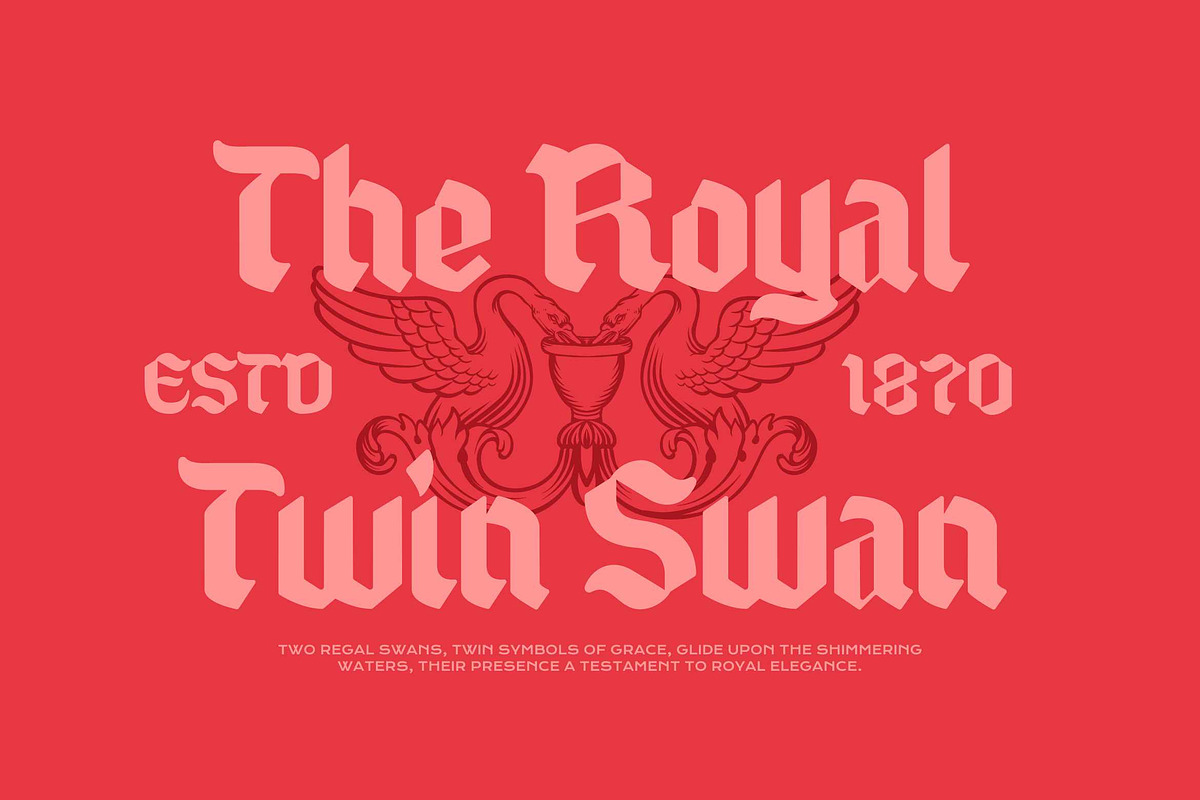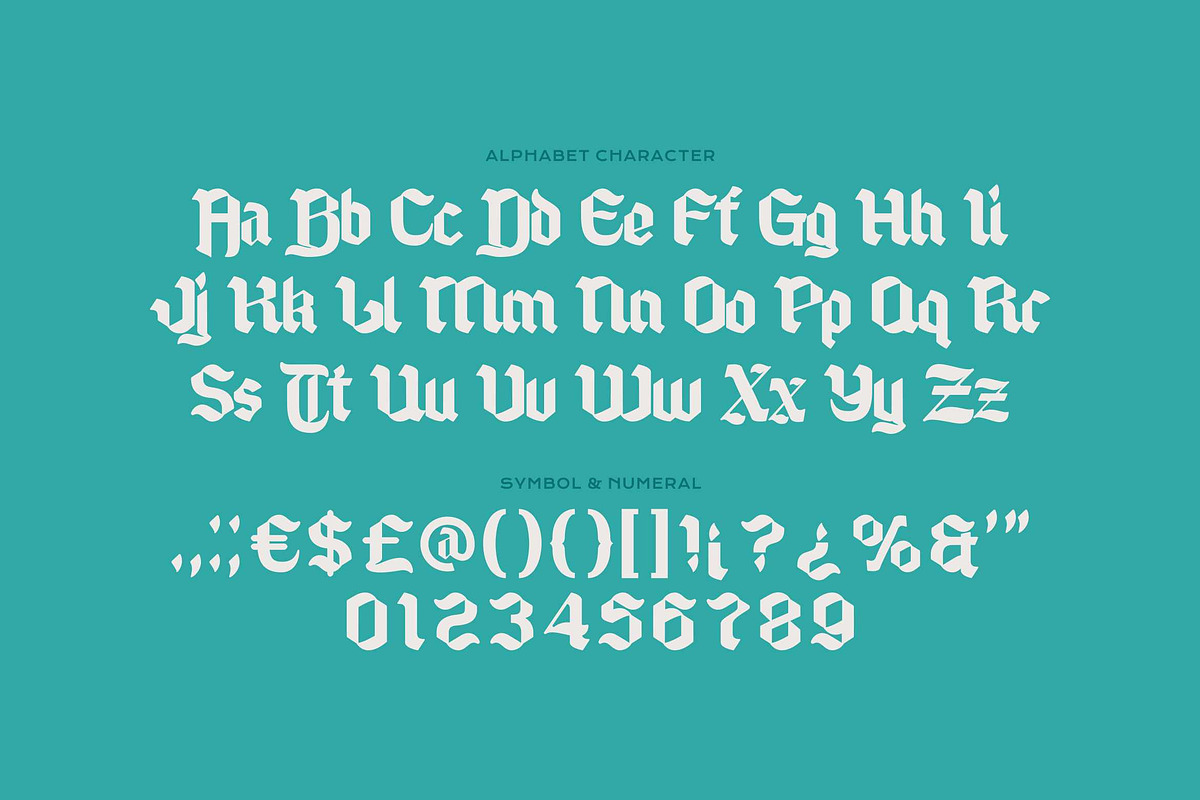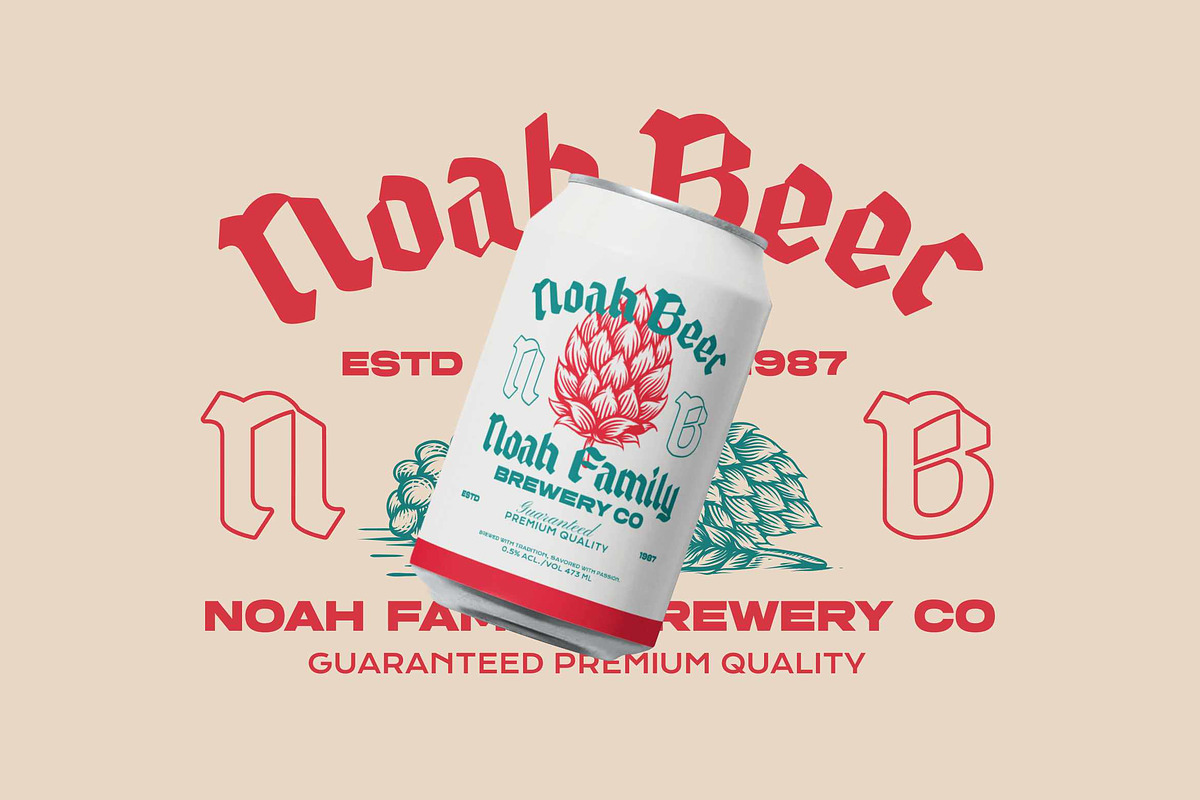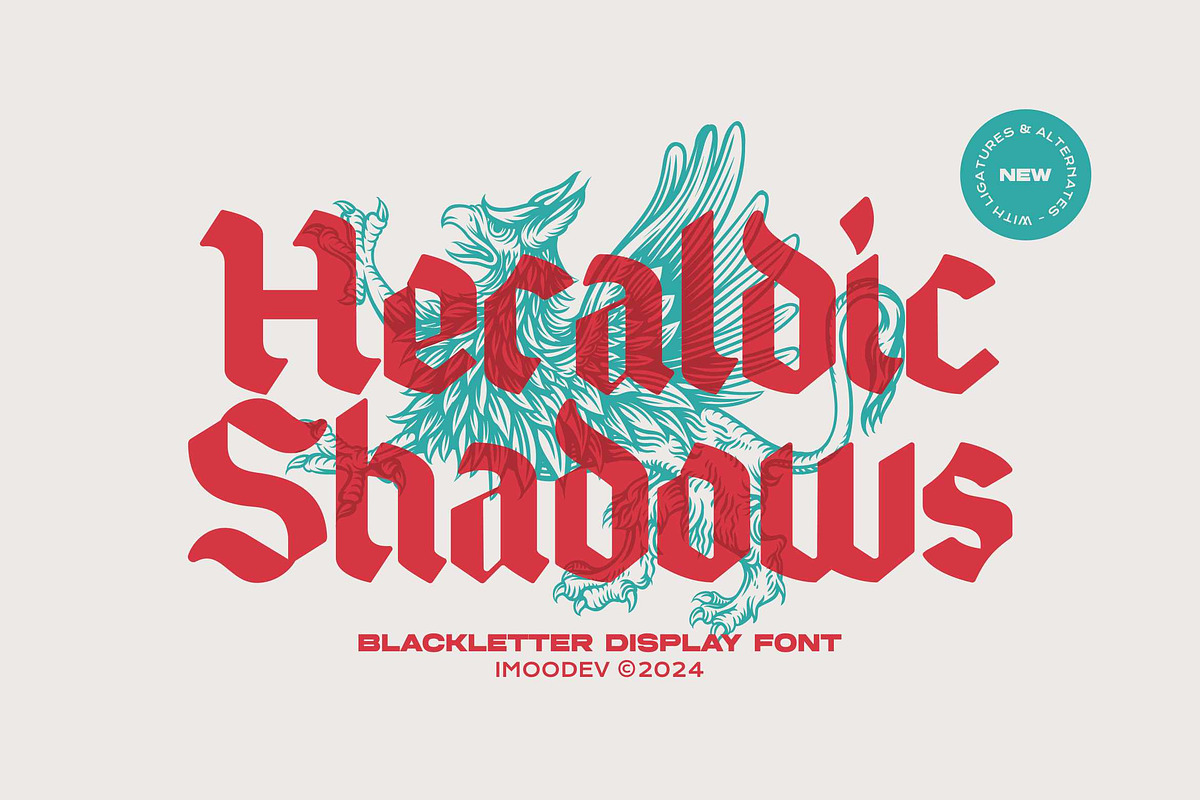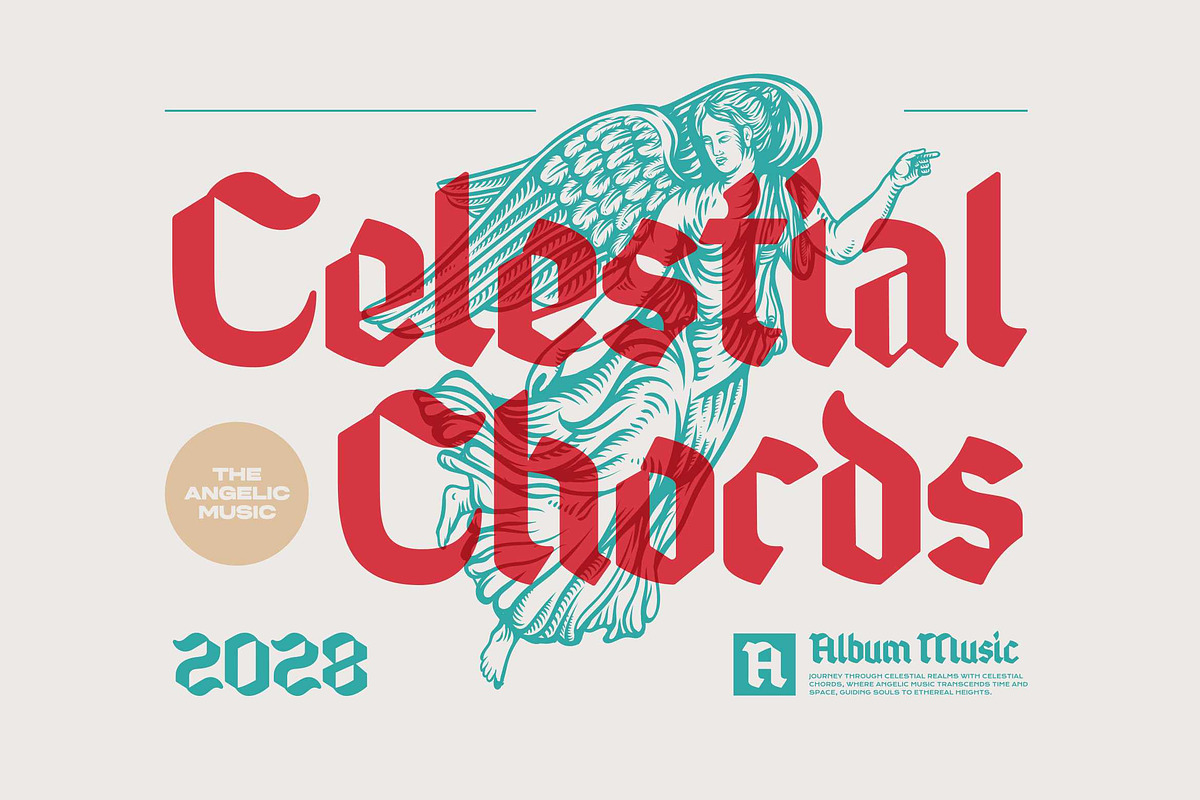
Heraldic Shadows - Bold Gothic Font
Heraldic Shadows is a bold and commanding blackletter display font that masterfully blends historical grandeur with a clean, contemporary edge. Each character in this typeface is crafted with a powerful presence, featuring confident, weighted strokes and sharp, chiseled terminals that demand attention.
The letterforms are a modern interpretation of classic gothic calligraphy, designed with a focus on balance and impact. The uppercase letters are stately and ornate, perfect for creating impactful initial caps and regal logos. With its distinctive angular forms and subtle calligraphic influences, Heraldic Shadows is perfect for projects that require a touch of dark elegance, historical weight, or modern rebellion. This font is a versatile tool for branding, headlines, album art, apparel design, and poster work.
- Uppercase and Lowecase Characters.
- Numerals and Punctuations.
- Alternates and Ligatures.
- Multilingual Support.